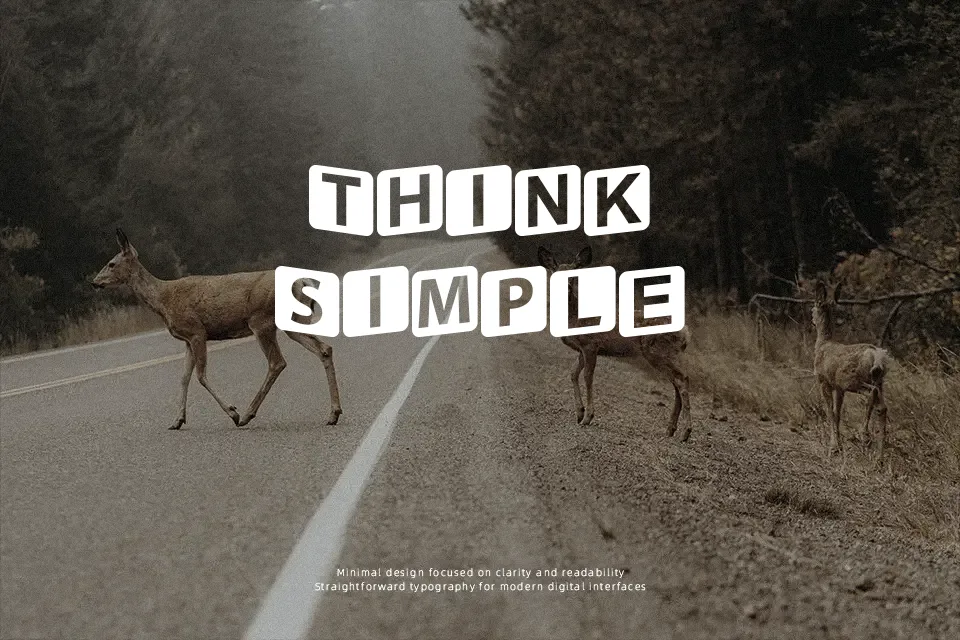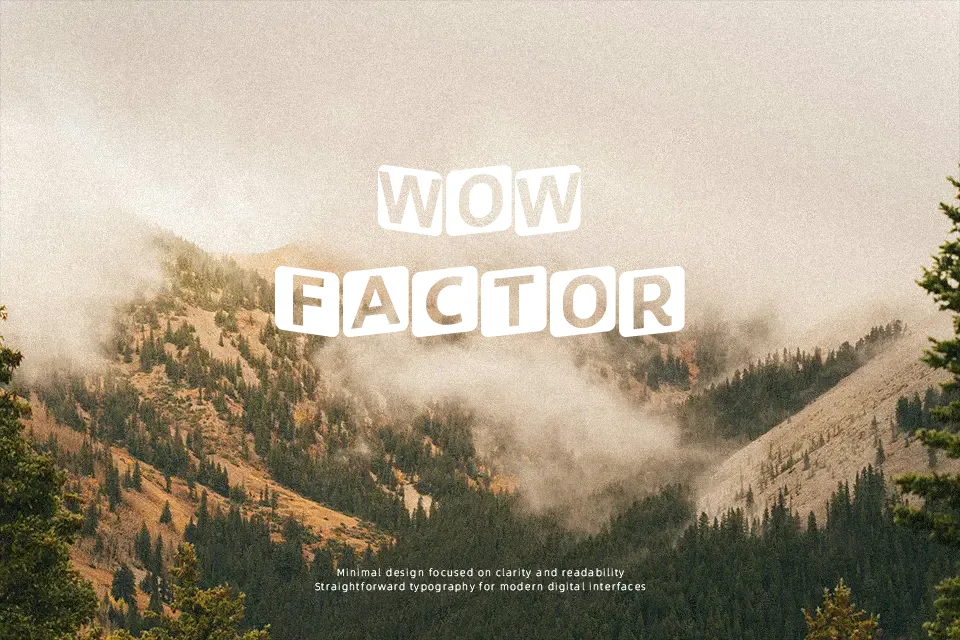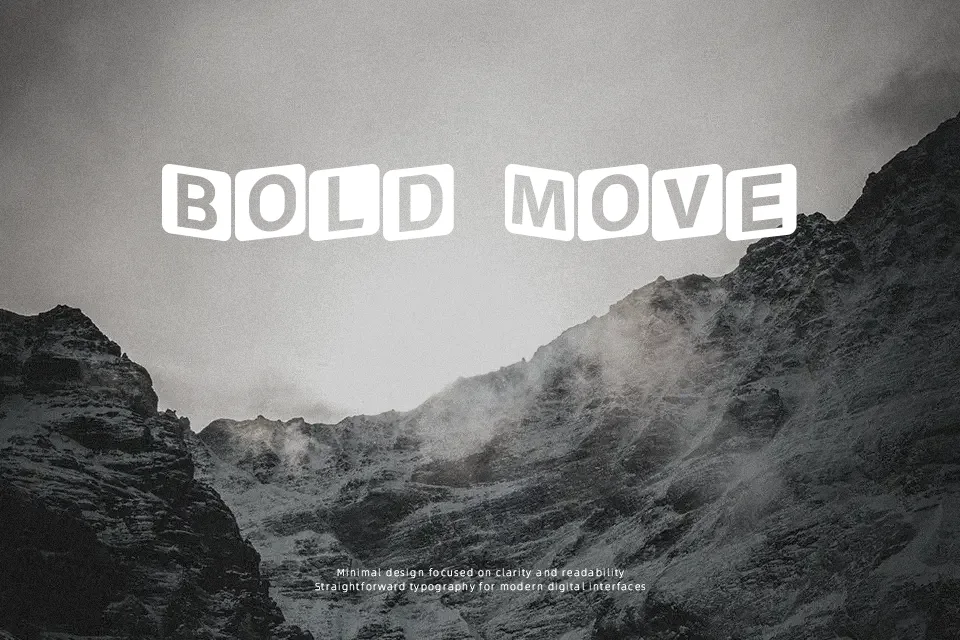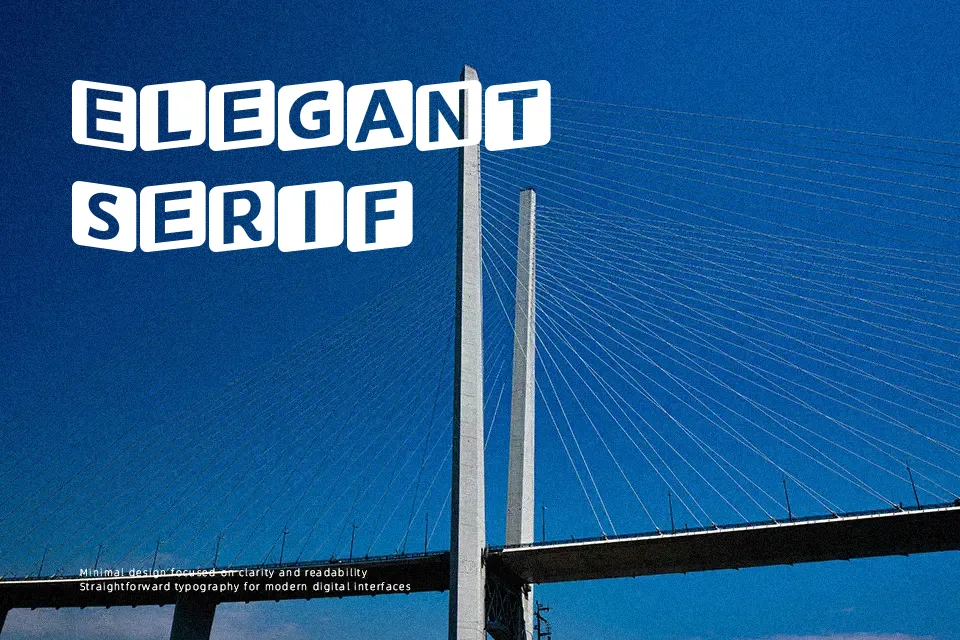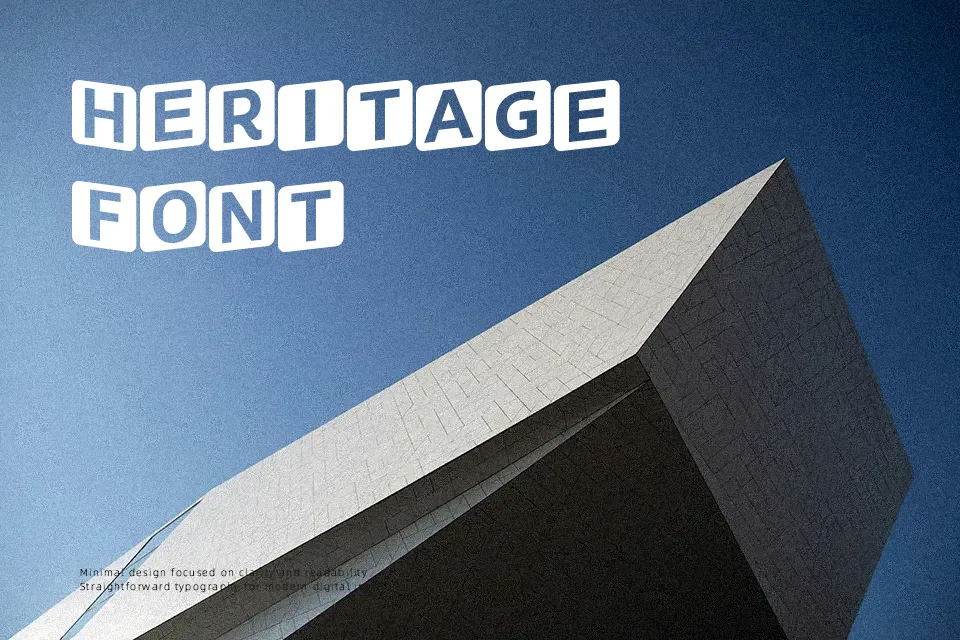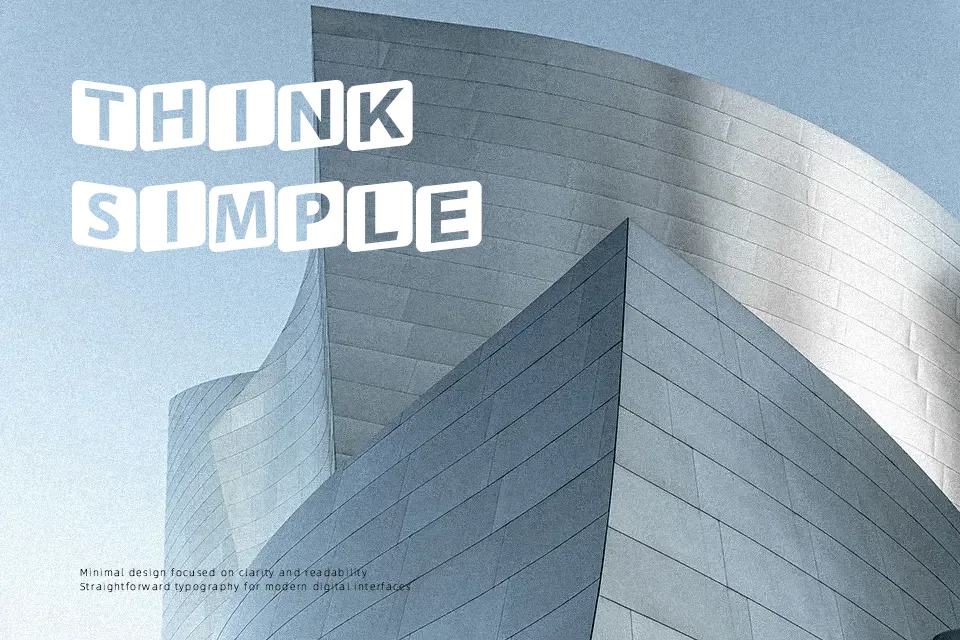
Square Kids Font
Square Kids Font presents a distinct display typeface structured around dimensional toy blocks, framing each uppercase letter inside a shaded cubic boundary. The reversed letterforms feature thick, unmodulated strokes with rounded inner terminals that produce sharp visual contrast against the solid block faces. Each character occupies a rigid square proportion, resulting in consistent visual rhythm across short titles. Spacing remains tightly contained by the outer borders of the cubes, ensuring cohesive word groupings at large scales. However, the heavy geometric framing makes the typeface unsuitable for continuous body text, as small sizes cause glyph details to blur together. The bold silhouettes deliver excellent immediate impact for nursery school signage and children’s packaging.
Best For: nursery school signage, toy packaging headers, children book covers, daycare event banners
Not Ideal For: continuous body text, mobile application menus, corporate editorial articles, dense spreadsheet data